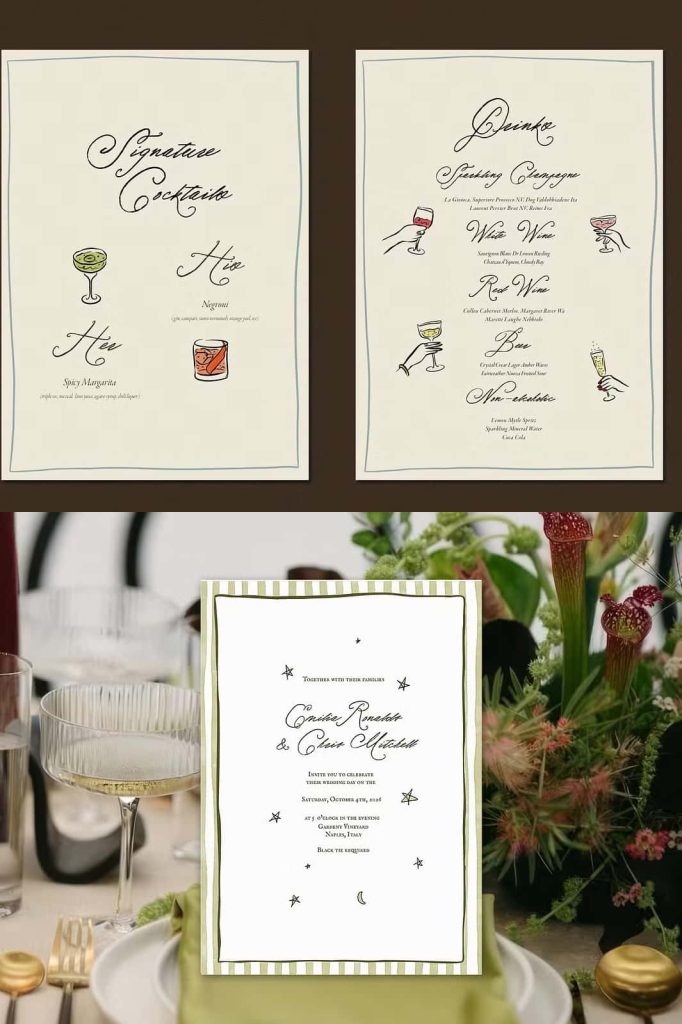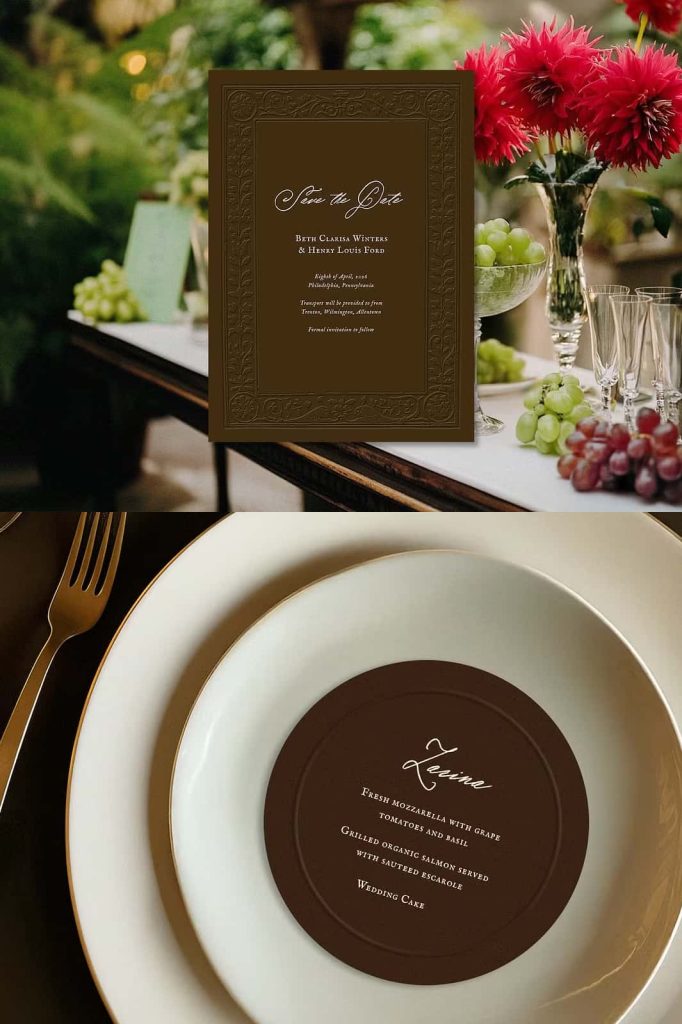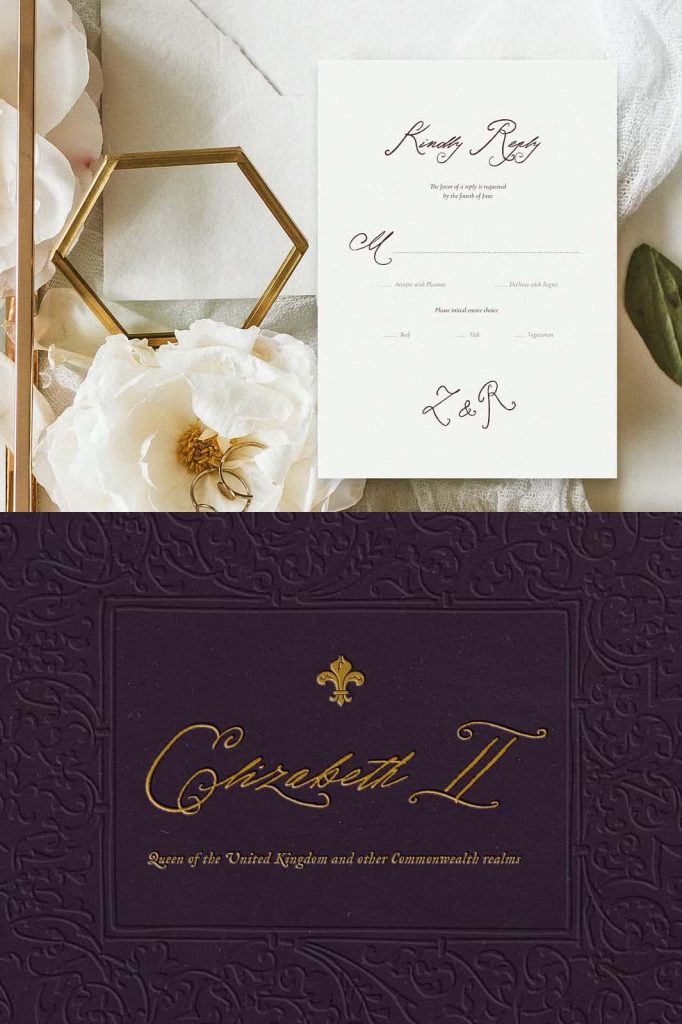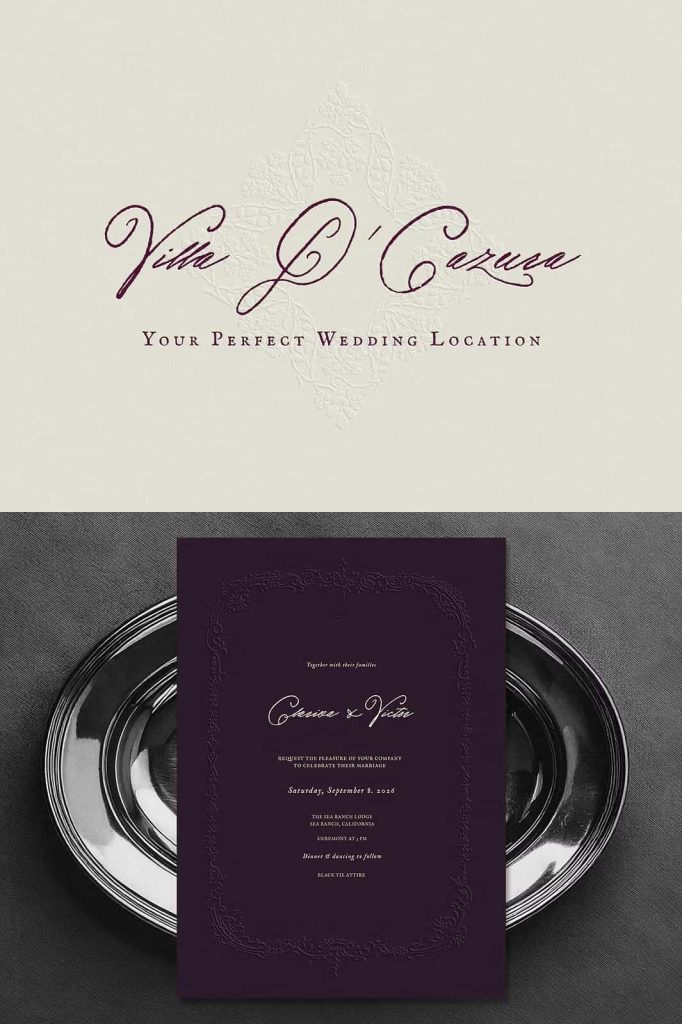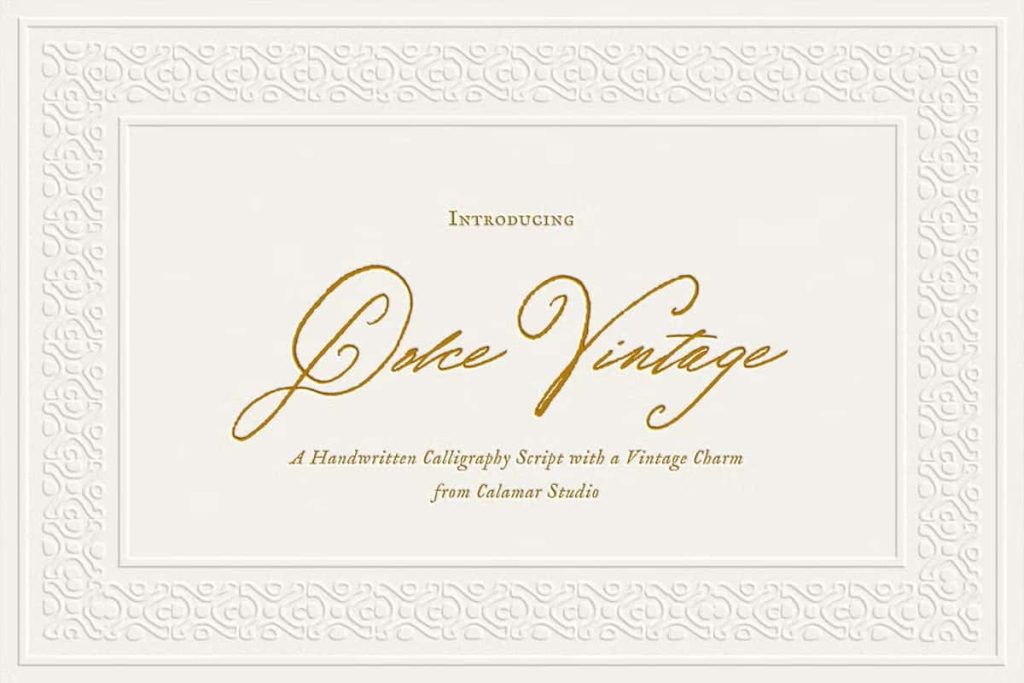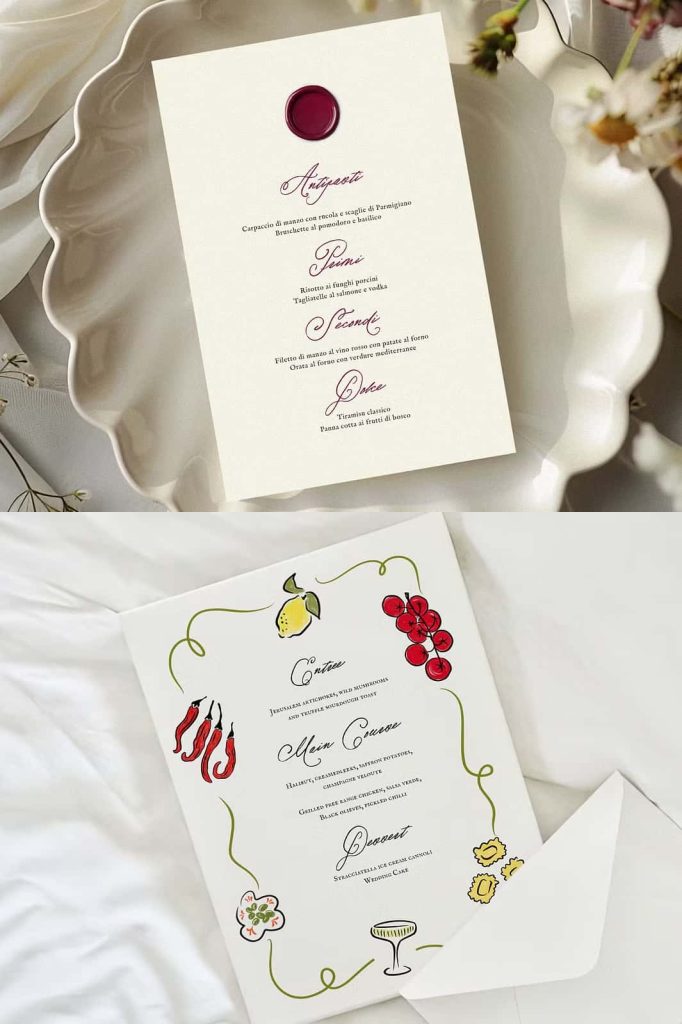
Dolce Vintage Calligraphic Font
Dolce Vintage is an elegant calligraphic font that combines authentic handwritten character with a refined vintage aesthetic. Crafted with a real pen, the typeface preserves the natural qualities of traditional handwriting, including beautifully textured strokes and subtly torn edges. These details give every word a distinctive personality while creating the impression of lettering written by hand rather than produced by a perfectly uniform digital system.
With its graceful movement and carefully textured appearance, Dolce Vintage brings warmth, sophistication, and timeless charm to a wide range of creative projects. The font balances classic calligraphic elegance with a modern sensibility, allowing designers to create work that feels polished without becoming overly formal. Whether you are designing an elegant wedding invitation, refined stationery, a romantic logo, or a vintage-inspired brand identity, Dolce Vintage can add an expressive handcrafted finish.
Authentic Handwritten Character
Dolce Vintage takes its personality from genuine pen-written lettering. The real-pen construction creates organic strokes that feel natural and expressive. Instead of presenting perfectly controlled digital shapes, the font embraces subtle texture and irregularity to preserve the visual character of handwritten typography.
This authentic quality makes Dolce Vintage particularly useful when you want your design to communicate personality and craftsmanship. The lettering feels personal and carefully created, making it an excellent choice for projects where emotional connection and visual detail matter.
Beautifully Textured Torn Edges
One of the defining characteristics of Dolce Vintage is its beautifully textured appearance. The torn edges introduce subtle imperfections that strengthen the handcrafted aesthetic. These details prevent the lettering from appearing sterile or overly polished and instead give it the tactile quality of ink flowing across paper.
The textured edges also reinforce the vintage personality of the font. They create a visual connection to traditional stationery, handwritten correspondence, old printed materials, and carefully crafted paper goods. Use these characteristics to add depth and authenticity to designs that need a nostalgic yet sophisticated atmosphere.
A Natural Alternative to Perfect Typography
Digital typography often relies on precision and repetition. Dolce Vintage takes a different approach by celebrating the visual qualities that make handwriting unique. Its organic details allow designers to create compositions that feel more personal, artistic, and human.
This makes the font especially effective for projects where you want to move away from generic typography. A simple name, phrase, or brand message can become much more memorable when rendered with expressive calligraphic movement and handcrafted texture.
Elegant Vintage Charm
Dolce Vintage combines vintage inspiration with contemporary usability. Its classic calligraphic personality recalls traditional handwritten invitations, personal letters, elegant stationery, and old-world typography, while its refined construction keeps the overall appearance suitable for modern design.
You can emphasize the vintage influence by combining Dolce Vintage with textured paper, antique-inspired illustrations, delicate ornaments, botanical artwork, or classic photography. For a modern interpretation, place the font against clean backgrounds and pair it with minimalist layouts, contemporary photography, or simple geometric elements.
Perfect for Wedding Invitations
Dolce Vintage is an excellent choice for wedding stationery because its elegant handwritten appearance creates an immediate sense of romance and sophistication. Use it for invitation titles, names, wedding dates, venue information, envelopes, menus, seating charts, programs, thank-you cards, and other wedding materials.
The calligraphic movement can give names and important phrases a beautiful focal point while maintaining a warm and personal atmosphere. Pair Dolce Vintage with a classic serif or clean sans serif for supporting information to create a complete wedding typography system.
Create a Cohesive Wedding Identity
Use Dolce Vintage consistently across your wedding materials to create a recognizable visual identity. Apply it to the main invitation, then repeat the lettering style on menus, welcome signs, table cards, gift tags, and social media announcements.
This consistent approach helps every element feel connected. You can also combine the font with delicate floral illustrations, thin borders, subtle textures, and carefully selected spacing to create an elegant stationery collection with a handcrafted personality.
Beautiful Stationery Design
Dolce Vintage naturally suits stationery projects that require warmth and sophistication. Use it for personalized letterheads, greeting cards, thank-you notes, notebooks, journals, planners, envelopes, labels, and correspondence cards.
Its handwritten quality makes personal names and short messages feel more intimate. Whether you are creating stationery for a boutique brand or a personal project, Dolce Vintage can add a refined finishing touch that communicates craftsmanship and attention to detail.
Ideal for Elegant Branding
Brands can use Dolce Vintage to create identities that feel sophisticated, authentic, and memorable. Its calligraphic character works particularly well for businesses associated with beauty, weddings, fashion, photography, lifestyle products, handmade goods, hospitality, and luxury services.
Use the font for logos, wordmarks, brand names, product titles, slogans, packaging, promotional materials, and social media graphics. Its vintage influence can help a brand communicate heritage and craftsmanship, while the modern styling keeps the identity relevant to contemporary audiences.
Create Memorable Logos and Wordmarks
Dolce Vintage can transform a short brand name into an elegant typographic statement. Use it as the primary logo lettering or combine it with a simple supporting typeface. The textured strokes can make the wordmark feel custom and handcrafted.
For a refined identity, keep the surrounding design minimal and allow the lettering to take center stage. You can also introduce subtle decorative elements to reinforce the vintage character without overwhelming the logo.
Packaging with a Handcrafted Feel
Dolce Vintage can give product packaging a personal and artisanal appearance. Use it for product names, labels, collection titles, packaging headlines, stickers, seals, and promotional messages.
The real-pen aesthetic works particularly well for handmade candles, beauty products, wedding favors, specialty foods, stationery, boutique accessories, artisanal products, and lifestyle goods. Combine the font with textured paper backgrounds and restrained graphic elements to emphasize its tactile character.
Editorial and Print Design
The graceful appearance of Dolce Vintage can also enhance editorial projects. Use it for magazine titles, feature headlines, pull quotes, book covers, photography projects, brochures, catalogs, and creative publications.
Its expressive calligraphy works best when you use it selectively for important text. Pair it with a highly readable serif or sans serif for paragraphs and detailed information. This creates a clear hierarchy while preserving the elegant personality of the handwritten lettering.
Social Media and Digital Content
Dolce Vintage can bring a sophisticated handwritten touch to digital graphics. Use it for social media posts, wedding announcements, promotional campaigns, quote graphics, advertisements, website headers, digital invitations, and branded content.
The textured lettering can create a strong focal point when combined with photography or simple backgrounds. Use short phrases and carefully selected words to make the typography feel intentional and visually impactful.
Creative Uses for Dolce Vintage
- Wedding invitations
- Wedding stationery
- Save-the-date cards
- Wedding menus and programs
- Envelope lettering
- Elegant logo design
- Luxury branding
- Fashion branding
- Beauty product branding
- Photography logos
- Handmade product packaging
- Product labels
- Greeting cards
- Thank-you cards
- Personal stationery
- Book and editorial covers
- Website headers
- Quotes and inspirational designs
- Vintage-inspired creative projects
Pair Dolce Vintage with Complementary Typography
Dolce Vintage can become the focal point of a typography system, but pairing it with another font can improve hierarchy and readability. A classic serif can reinforce its timeless personality, while a clean sans serif can create a modern contrast.
Use Dolce Vintage for names, titles, logos, and featured phrases. Then use the complementary font for descriptions, dates, captions, product information, and longer paragraphs. This strategy lets the calligraphic lettering provide personality without sacrificing clarity.
Use Texture to Strengthen the Vintage Aesthetic
Designers can emphasize the personality of Dolce Vintage by introducing subtle physical textures. Paper grain, soft ink effects, vintage photography, muted backgrounds, botanical illustrations, and classic decorative details can complement the textured edges of the font.
However, the typeface can also stand confidently on a clean background. For a contemporary design, use plenty of whitespace and let the natural texture of the lettering provide the visual interest. This approach creates a modern interpretation of vintage calligraphy.
Why Choose Dolce Vintage?
Choose Dolce Vintage when you want an elegant calligraphic font that feels genuinely handcrafted. Its real-pen construction, textured edges, and vintage-inspired personality give your typography an authentic visual quality that standard digital fonts often cannot reproduce.
The font works across weddings, stationery, branding, packaging, editorial design, social media, and personal creative projects. Its combination of classic elegance and modern usability allows you to create designs that feel sophisticated, warm, memorable, and personal.
Final Thoughts
Dolce Vintage brings the beauty of authentic handwriting into contemporary graphic design. Its carefully crafted calligraphic strokes and textured, torn edges create a distinctive appearance that feels both vintage and modern. Every word gains an element of personality, helping designers create work that feels thoughtful and handcrafted.
From elegant wedding invitations and refined stationery to logos, branding, packaging, editorial layouts, and digital graphics, Dolce Vintage offers a versatile way to introduce sophistication and warmth. Let the font take center stage in a minimalist composition, or pair it with complementary typography and vintage-inspired details for a richer visual identity.
If you want a calligraphic font with authentic pen-written character, graceful movement, and timeless vintage charm, Dolce Vintage provides an elegant foundation for your next creative project.